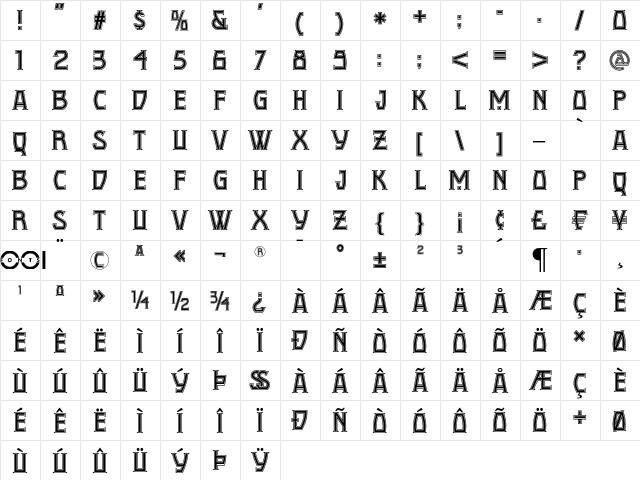
Conquistadorman NF Regular
Design Context for Conquistadorman NF Typeface
Conquistadorman NF is a composed and adaptable typeface that performs quietly and consistently across a wide range of design contexts.
Pro Tip: Use Conquistadorman NF in both headline and body roles to test its range before committing to a single application.